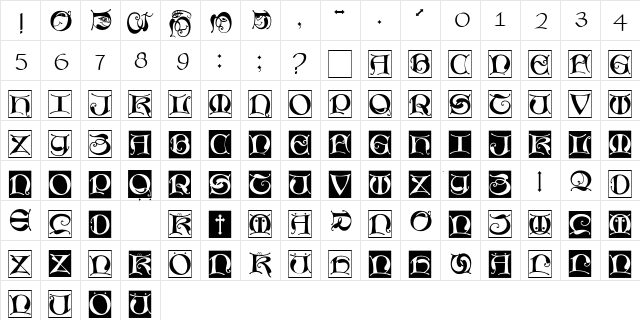
MissalUncialeBricks Regular
Design Context for MissalUncialeBricks Typeface
MissalUncialeBricks is a composed and adaptable typeface that performs quietly and consistently across a wide range of design contexts.